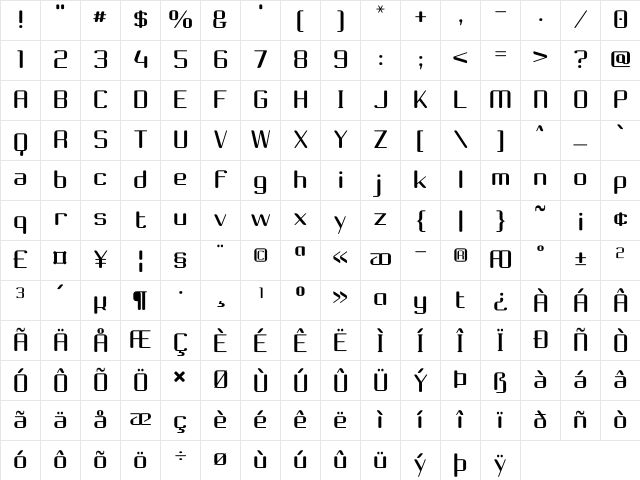
Complete Choktoff Regular glyph index. Displaying only characters natively supported by Choktoff Regular font.
Choktoff is a composed and adaptable typeface that performs quietly and consistently across a wide range of design contexts.
Who designed the Choktoff Regular font?